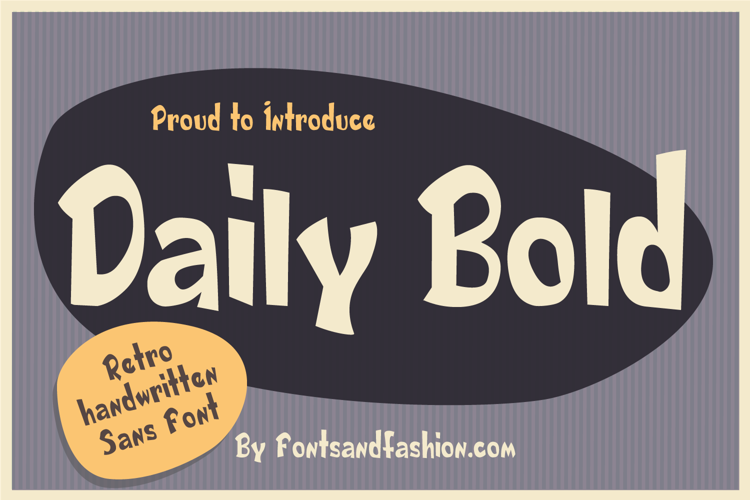
DAILY BOLD Font
"Daily Bold'' is a fancy font, inspired by the retro Sans and Comic fonts. With a deeply evocative design, it takes us back in time to the '50s-'60s.This period is still a great source of inspiration for the design, advertising and art in general.
"Daily Bold'' font is composed of 231 glyphs, including the multilingual characters.
It is perfect for a wide variety of branding, advertising, posters, banners, packaging, podcasts, apparel, quotes, beverages and more.